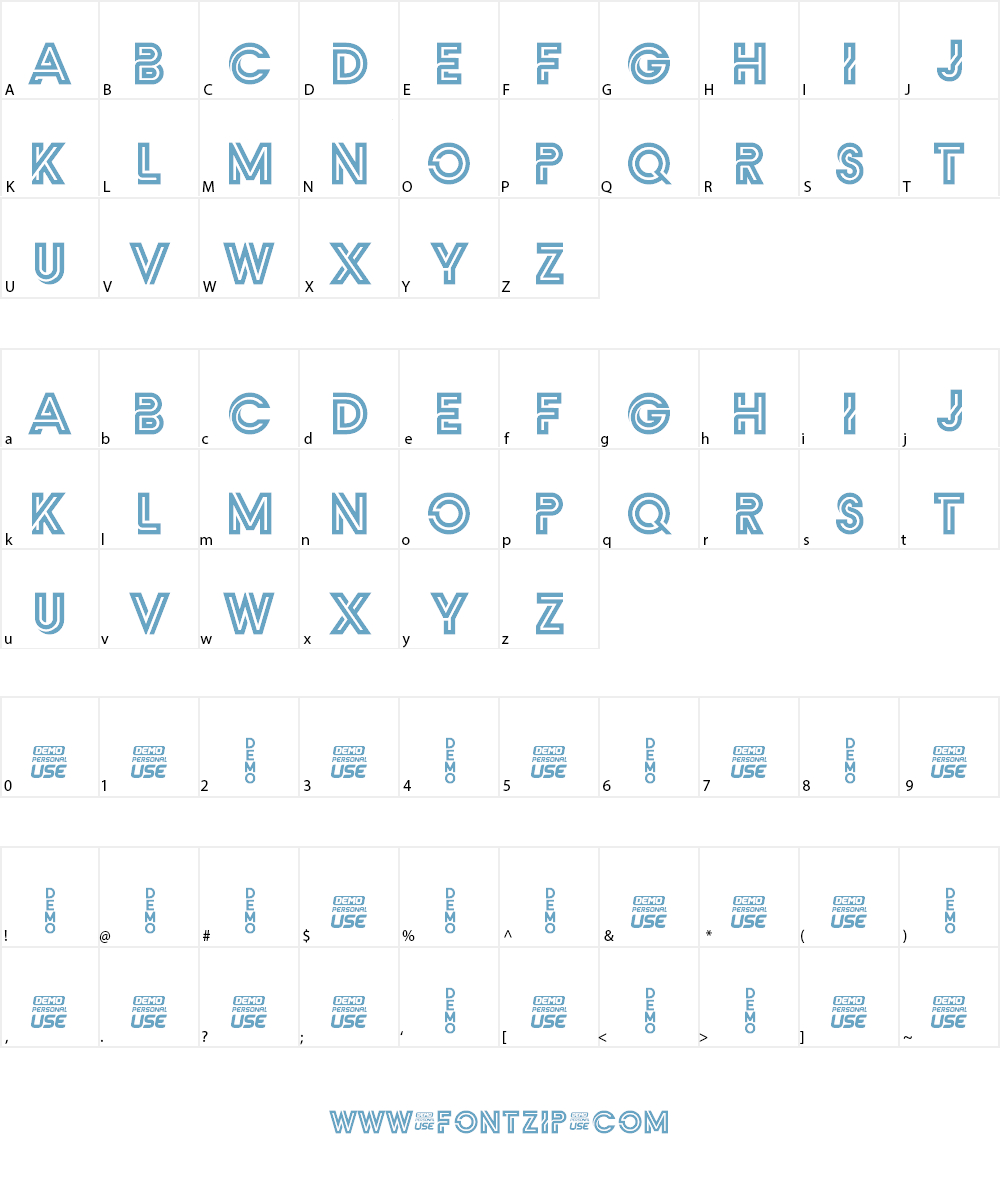
This source was born as most of the sources of the Zilap Studio "Exploration and re-invention of a style" The concept was focused on the daily need of creatives to create new logos for customers and personal products, based on all this was created Zilap Monogram "La Fuente para Logos", also designed for special uses on web or projects for printing.